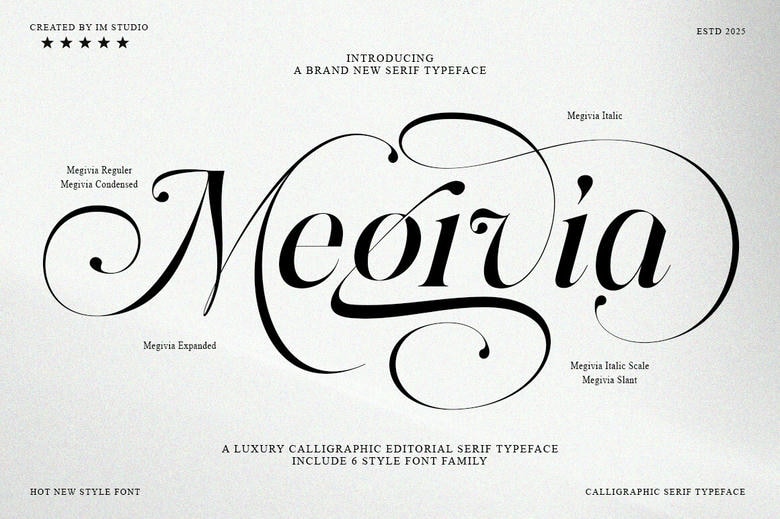
Megivia Font
Megivia is an alluring calligraphy serif typeface which balances the classical elegance with the modern smear flawlessly. Megavia is strong in its skillful combination between the romanticism and strict order, achieved by the thoughtful lines and subtle details. The typeface has a variety of styles: Regular, Expanded, Condensed, Scaled Italic and Slant which are well designed with sweeps and substitutions which are well drawn.
Megivia is spiritually sustained by your creative versatility, it presents the library burgeoning with ligatures and style variations. It works best in designing luxury fashion package, high end editorial designs, premium-level branding, distinctive invitations, striking headlines or a unusual logo. Looking forward to a luxurious, but sophisticated, style with Megavia at all times.
It is also deeply thought out, fully punctuated, full of numbers and complex OpenType capabilities as well as multilingual, which makes Megivia ideal in meeting the demands of designers who desire to create the touch of elegance and to create a strong impression through their art.
Megivia Serif Font